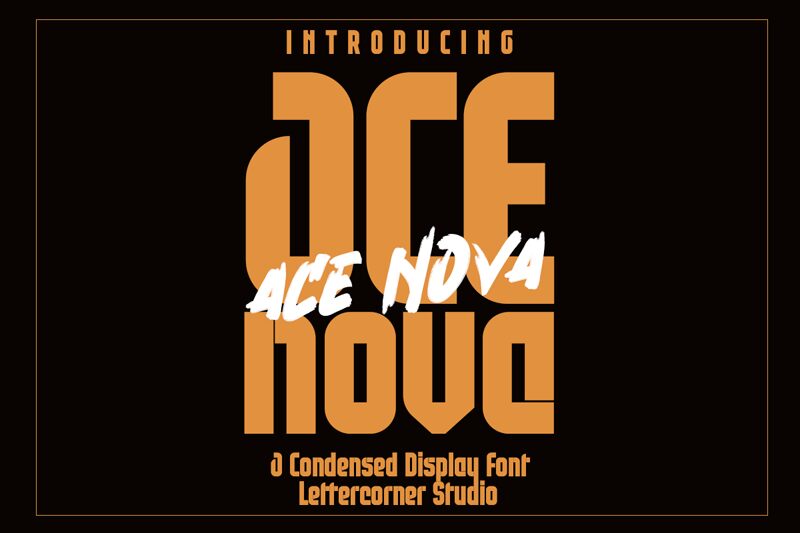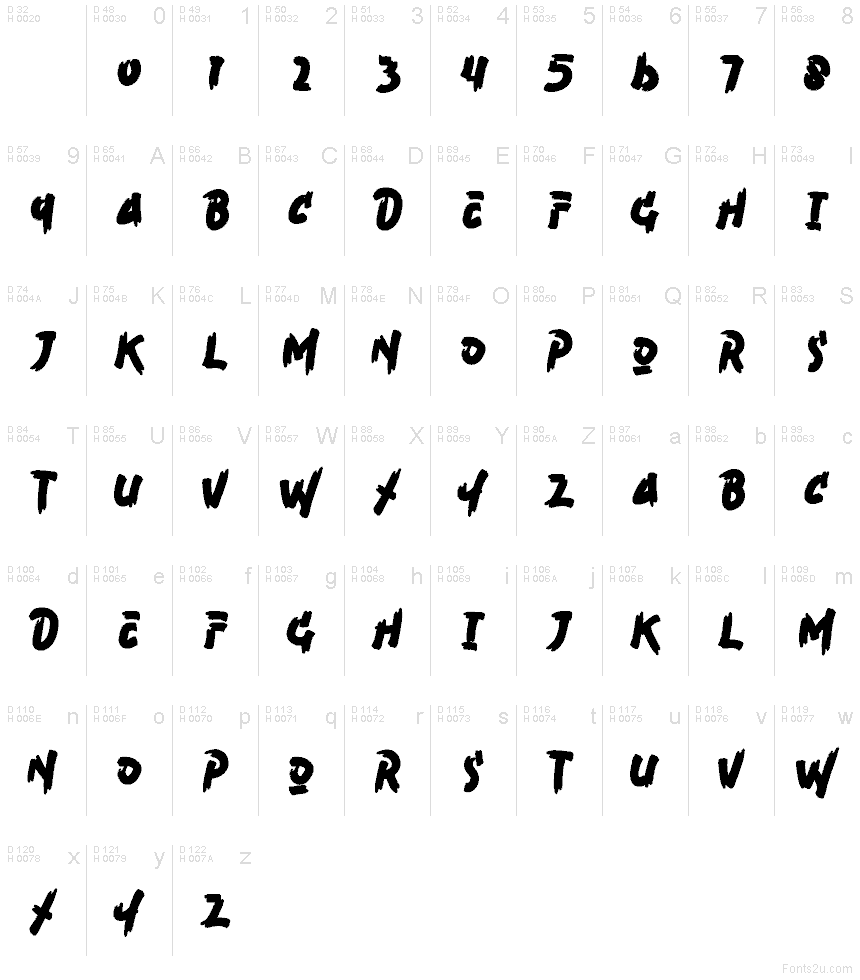
Ace Nova Brush
Ace Nova Brush font is an impressive, bold piece created by Mocha Frappuccino. Its aggressive expression stems from its modern aesthetic, and brush-like texture that gives the viewer an impactful visual experience.
A free brush font that will soon become your go-to in designing posters, magazine headers, book covers, website pages, promotional materials on social media with its expressive characters. College t-shirts with a nice message written or pillow covers will also look outstanding!